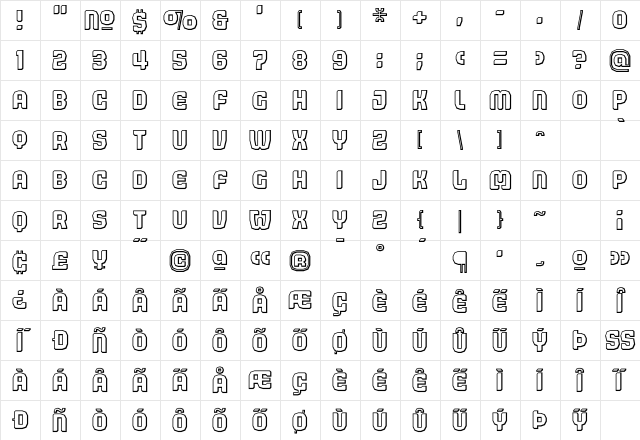
Judgement is built around its visual character rather than neutral utility - its distinctive forms are designed to make an impression at display sizes.
Font Pairing: Pair with a clean neutral sans-serif for body copy to let Judgement's character lead without overwhelming the composition.
Pro Tip: Use Judgement exclusively at display sizes - it was designed to be seen, not read at length. Let a neutral companion handle body copy.